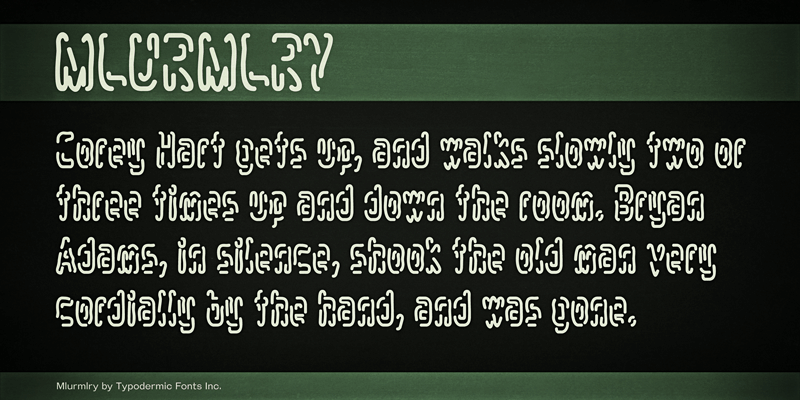
Preview and download Mlurmlry Font. Created by Typodermic Fonts in Fancy Distorted styles with 100% Free license.
Mlurmlry is a grubby, worm-trail headliner ideally suited to bacterial/viral themes. This font includes a license that allows free commercial use: sometimes referred to as a desktop license. This allows you to install the font on a computer and use it to create posters, web graphics, game graphics, t-shirts, videos, signs, logos and more. Read the license agreement for details. If you'd like to embed this font in an app, ebook, on the web or anything that's not covered by the desktop license agreement, visit the link below. You'll find distributors who offer different types of licenses or you can contact me for help. http://typodermicfonts.com/mlurmlry/ |